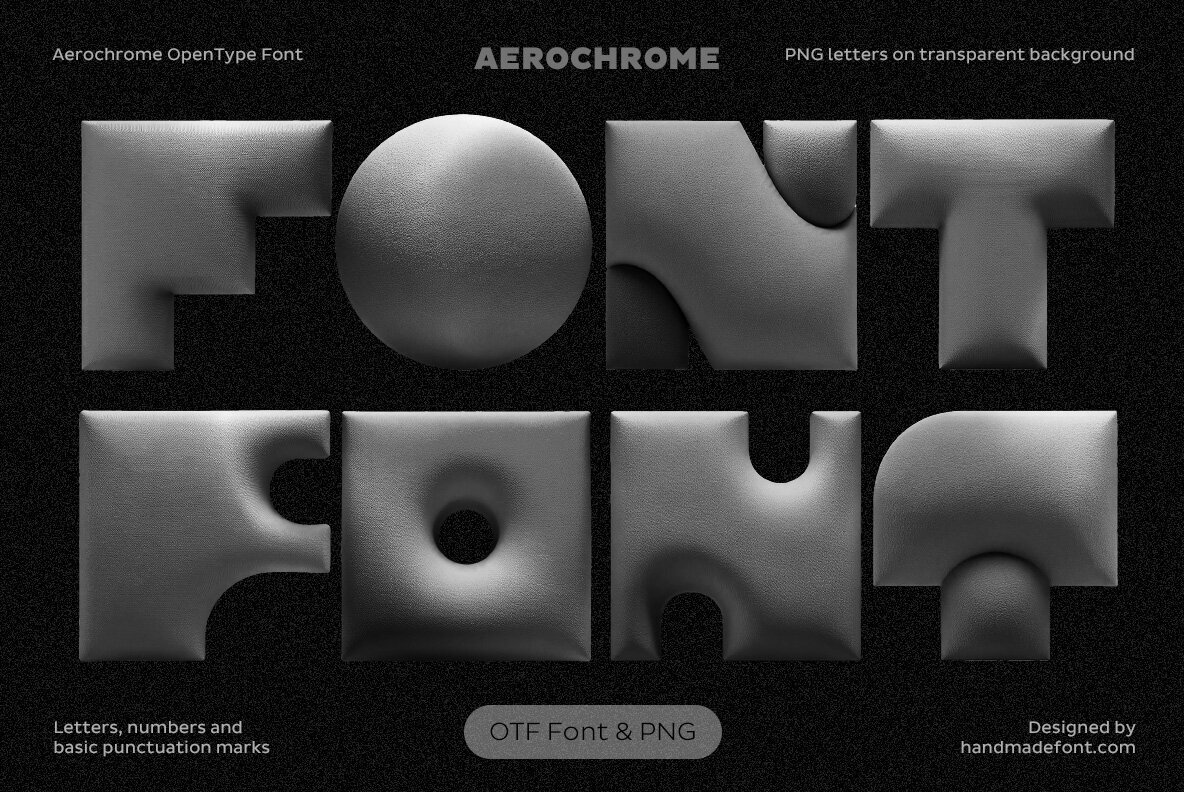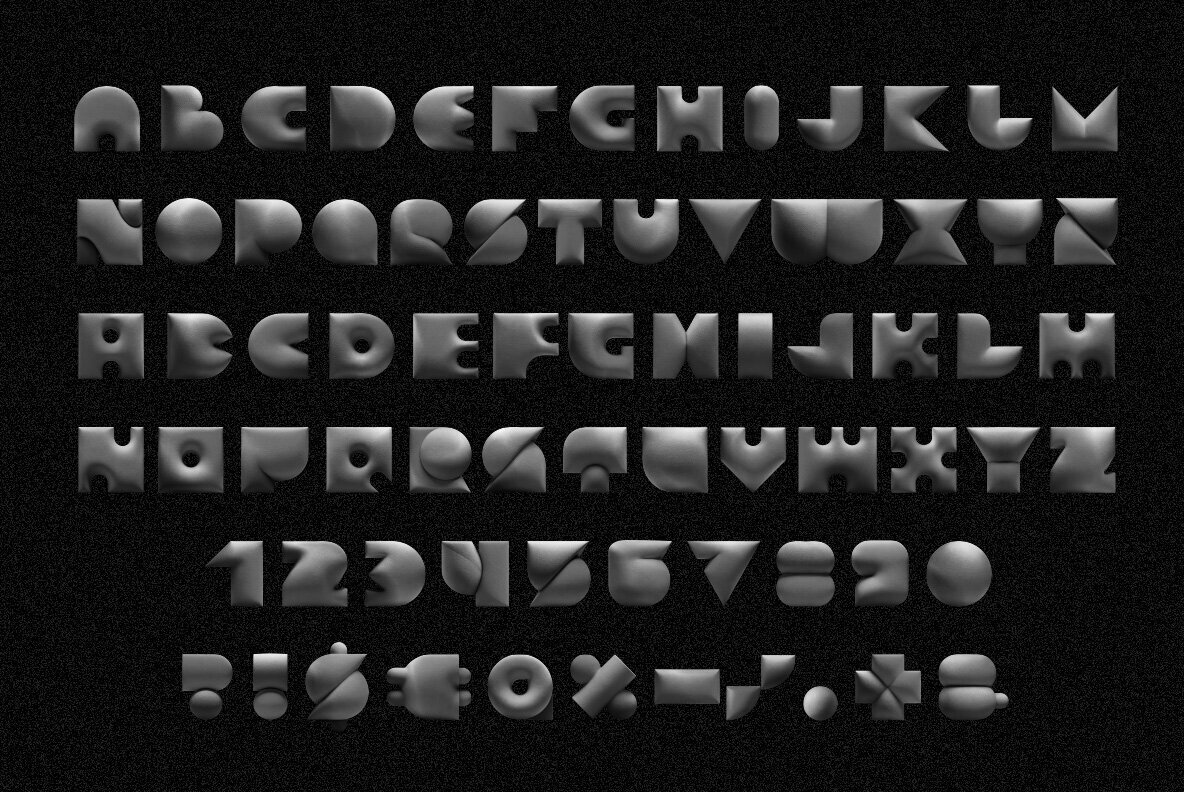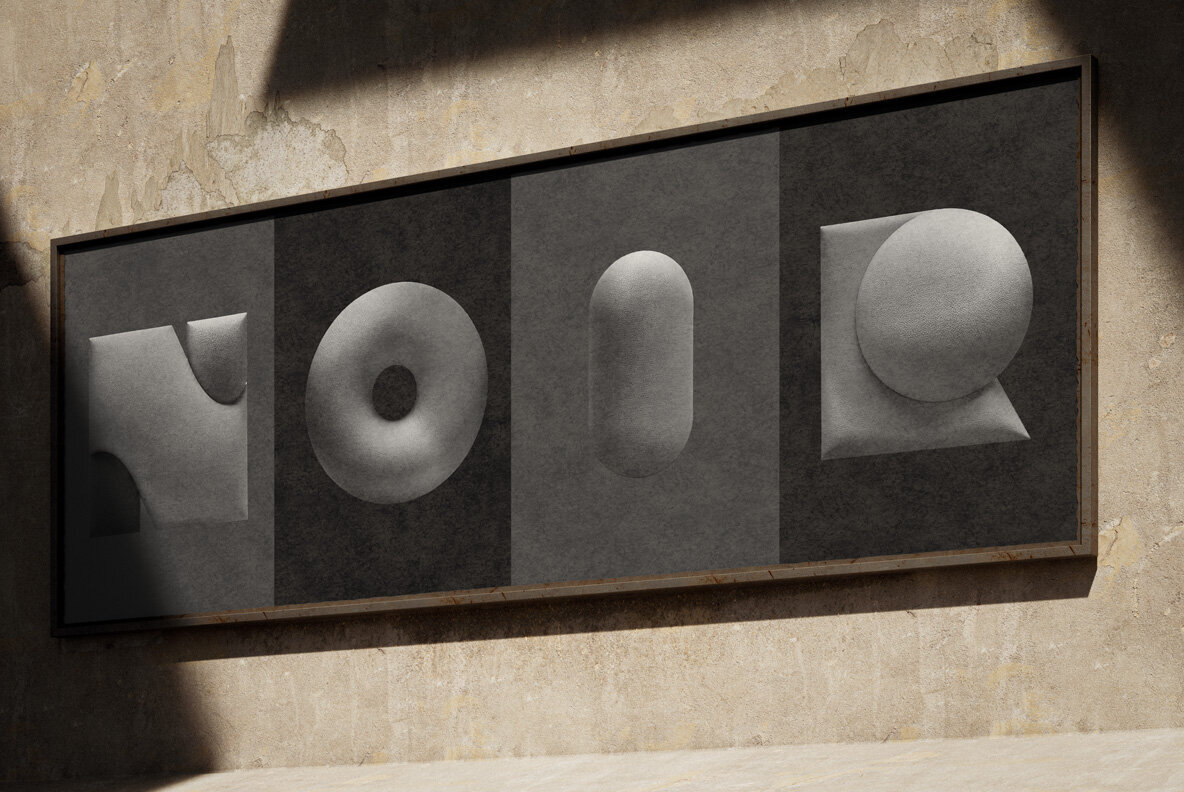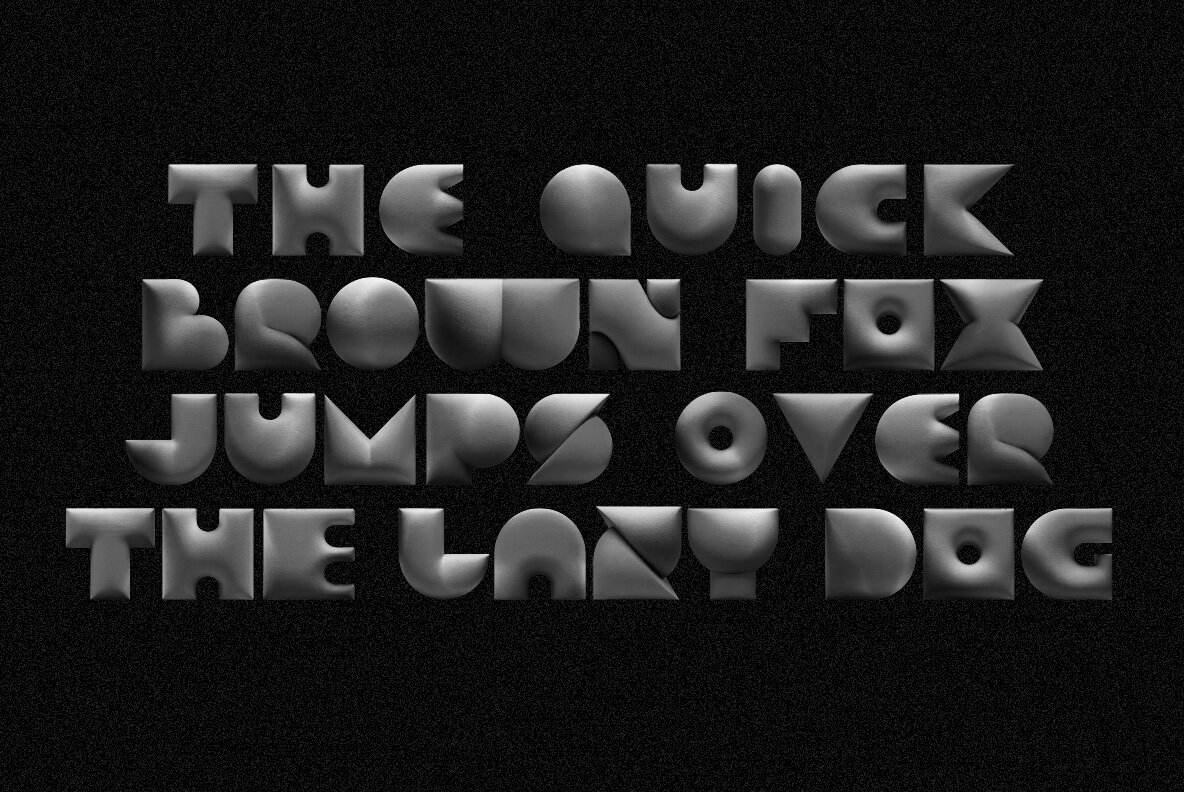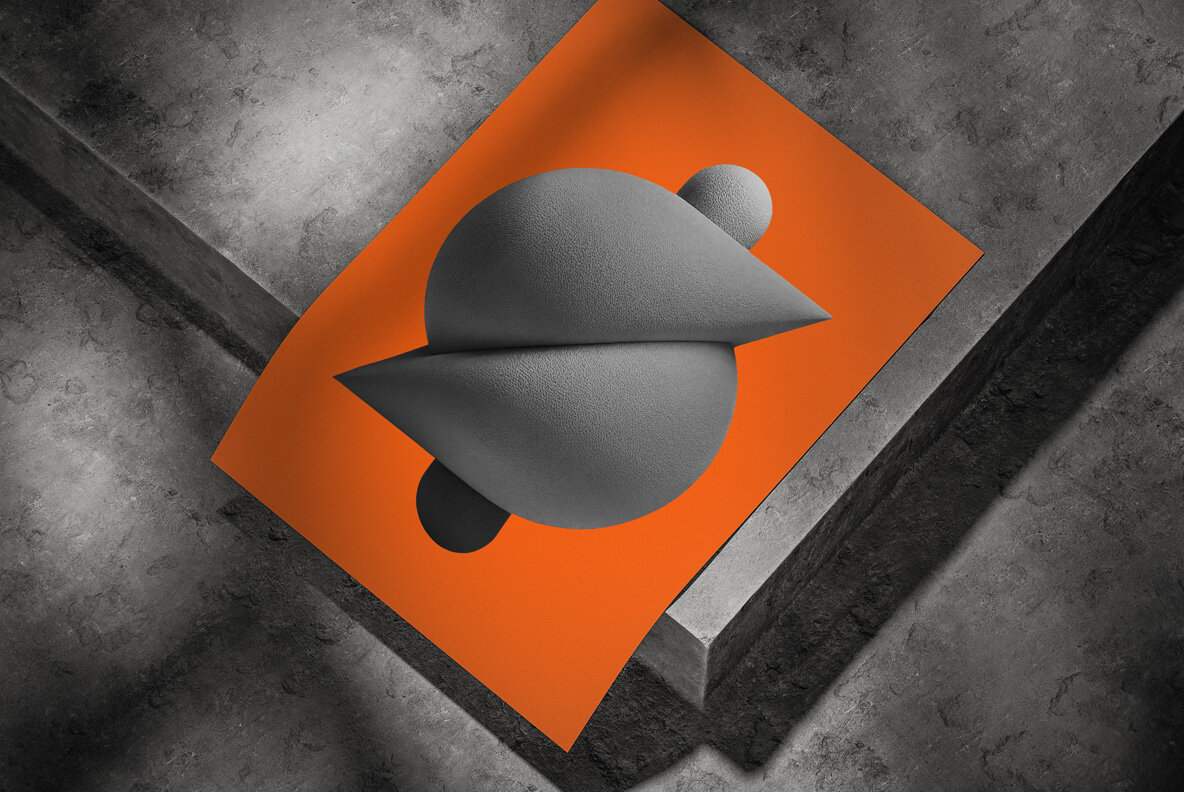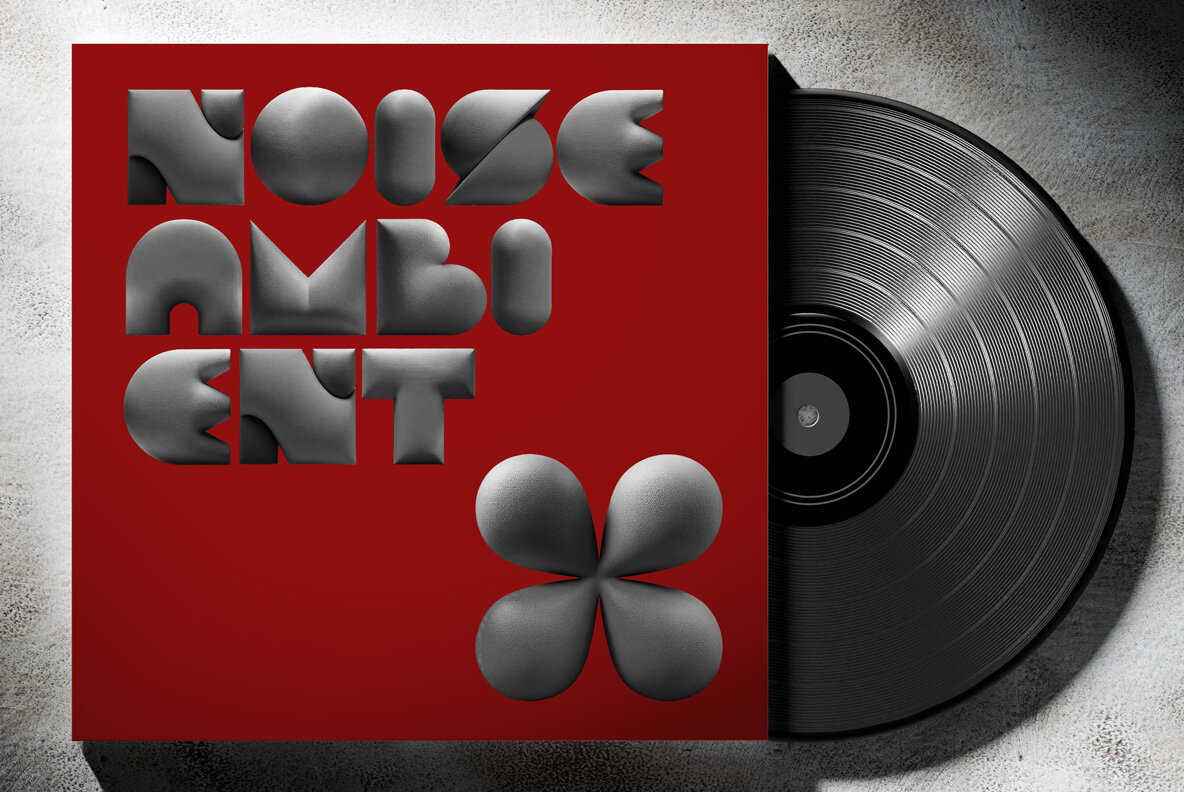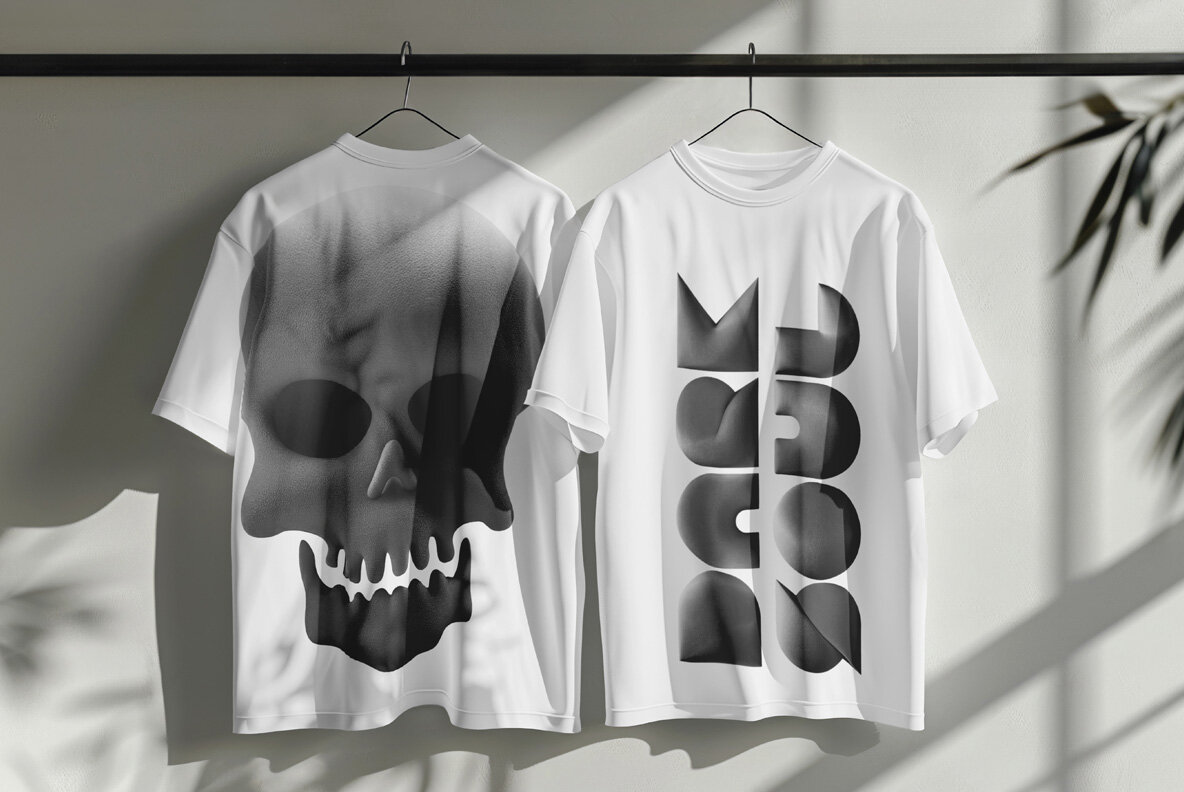
Aerochrome SVG Font
Meet Aerochrome Font – a modern, bold typeface that commands attention. This chunky, futuristic font exudes style with every curve and shadow, making it perfect for those daring design projects that require a punchy impact. Whether you're crafting album covers or spearheading fashion campaigns, Aerochrome delivers with its unapologetically bold presence. Its unique charm feels like a designer spa retreat for your text, ensuring your message makes a significant visual statement.Aerochrome SVG